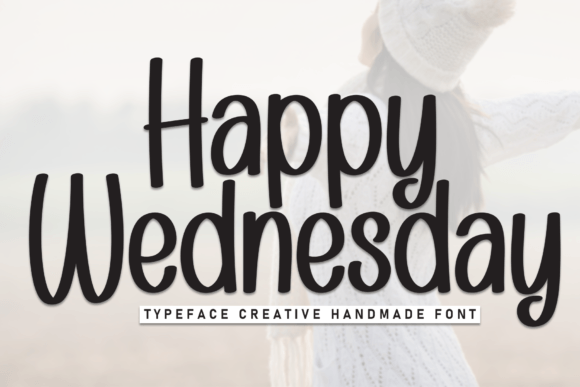
Wednesday Morning Spark
As you sit at your desk on a Wednesday morning, sipping your coffee and staring at a blank design canvas, you’re hit with a sudden burst of inspiration. The idea for your next project is finally taking shape, and you can’t wait to bring it to life. But, as you start brainstorming, you realize that the right font can make all the difference. That’s where the Happy Wednesday Font comes in – a sweet and friendly handwritten font designed to add a personal touch to your designs.
This versatile font is perfect for designers looking to create unique and eye-catching projects. With its natural and unique style, the Happy Wednesday Font is incredibly fitting to a large pool of designs. Whether you’re working on a wedding invitation, a social media campaign, or a children’s book, this font is sure to bring a smile to your face and your audience’s.
Happy Wednesday Font Key Features
- Font Family: A custom-designed font family with unique and playful characters, perfect for adding a touch of whimsy to your designs.
- Unique Characteristics: Features a distinctive, hand-drawn style with subtle imperfections and nuances, giving it a human touch and visual interest.
Happy Wednesday Font Review
Overall, I’d say the Happy Wednesday Font is a decent addition to any designer’s toolkit. ✨ It’s fun, playful, and instantly conveys the idea of a positive, uplifting vibe. The font is highly customizable, making it easy to adjust to different design contexts.
Here are some of the things I like about the Happy Wednesday Font:
- Fun and playful vibe
- Easy to read and recognize
- Good for social media graphics and web design
However, there are some limitations to keep in mind:
- Not ideal for formal or professional settings
- May not be suitable for lengthy blocks of text
- Lack of bold and italic styles
⚠️ While these limitations are worth noting, they don’t detract from the overall appeal of the font. If you’re looking for a fun, attention-grabbing font for a social media graphic or web design project, the Happy Wednesday Font is a solid choice.
Use the Happy Wednesday Font to add a touch of whimsy to your designs, especially for events or themes related to happiness or celebration.
The Happy Wednesday Font is ideal for:
Wedding invitations and decorations
Party invitations and flyers
Marketing materials for happy or uplifting products
Personalized gift tags and cards